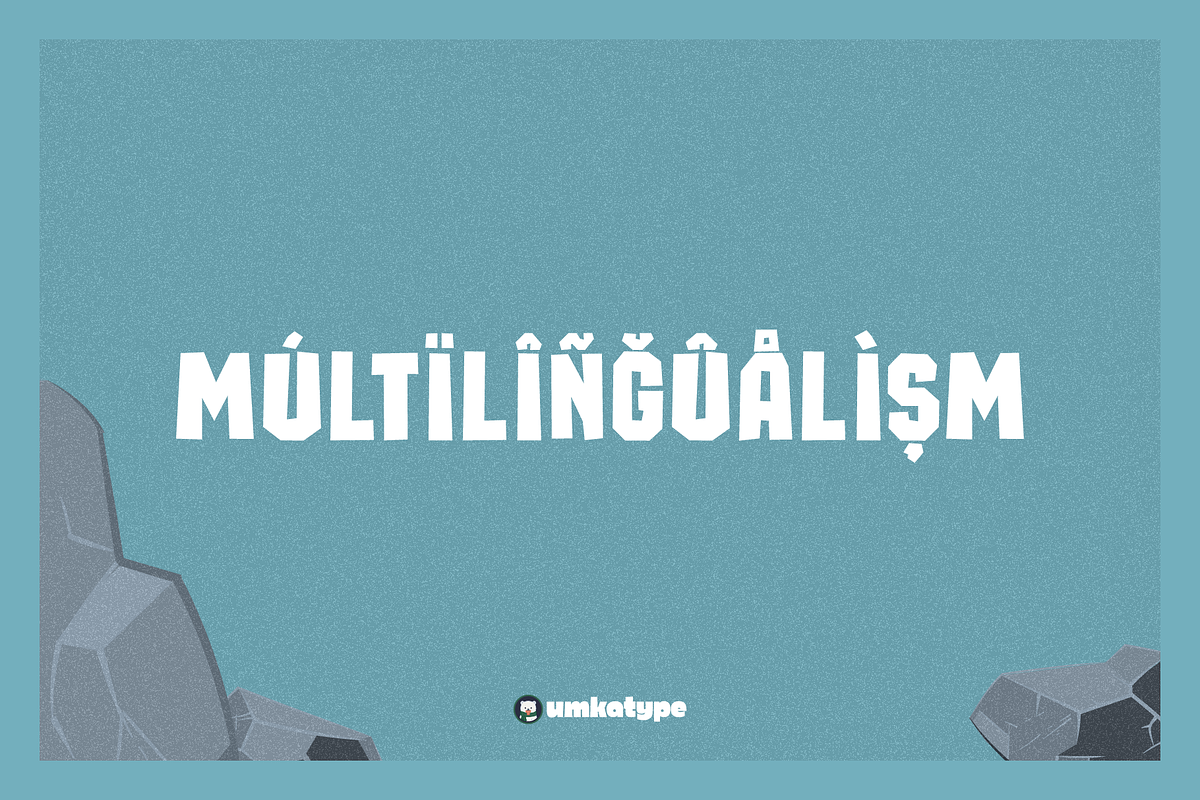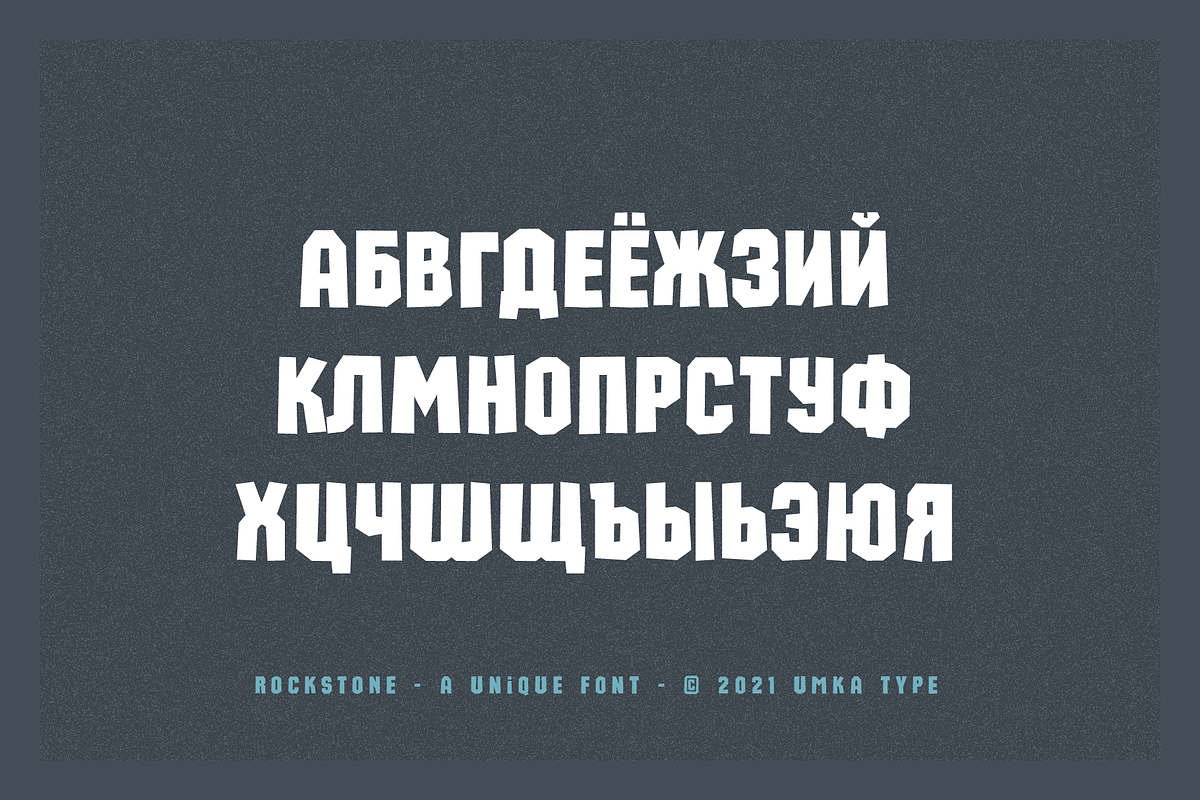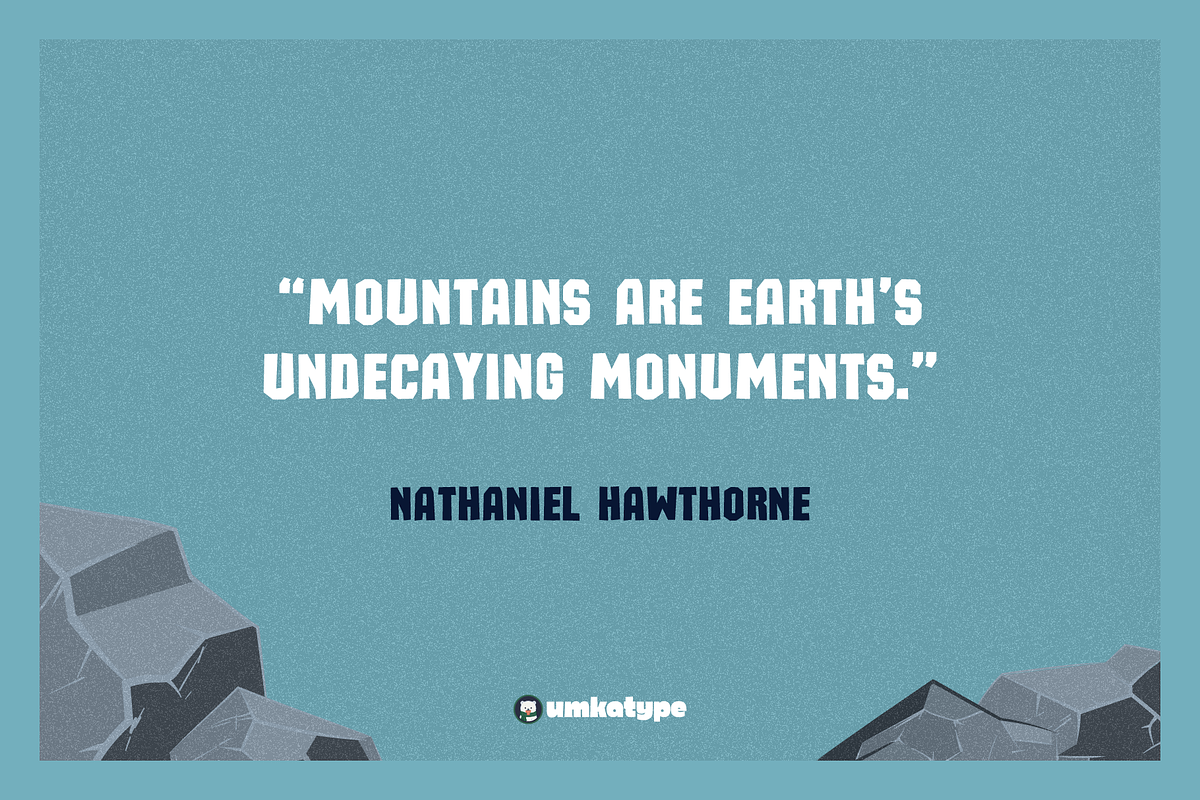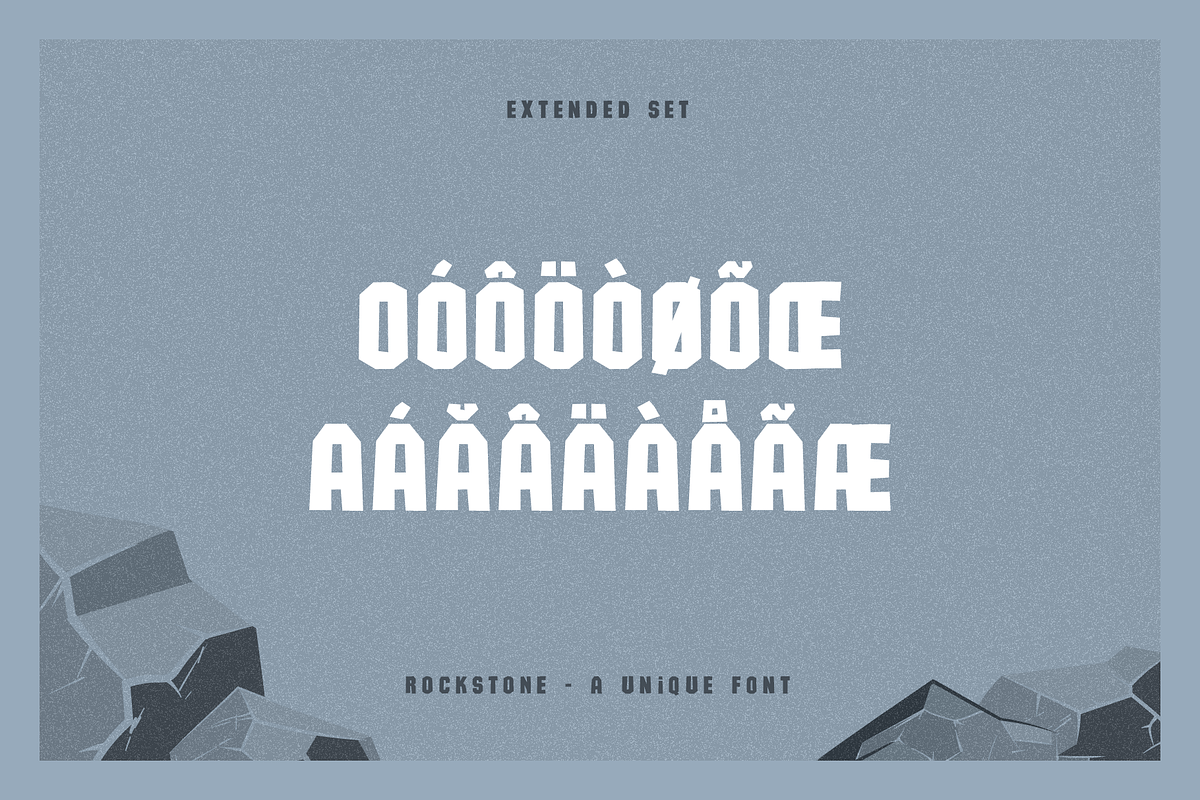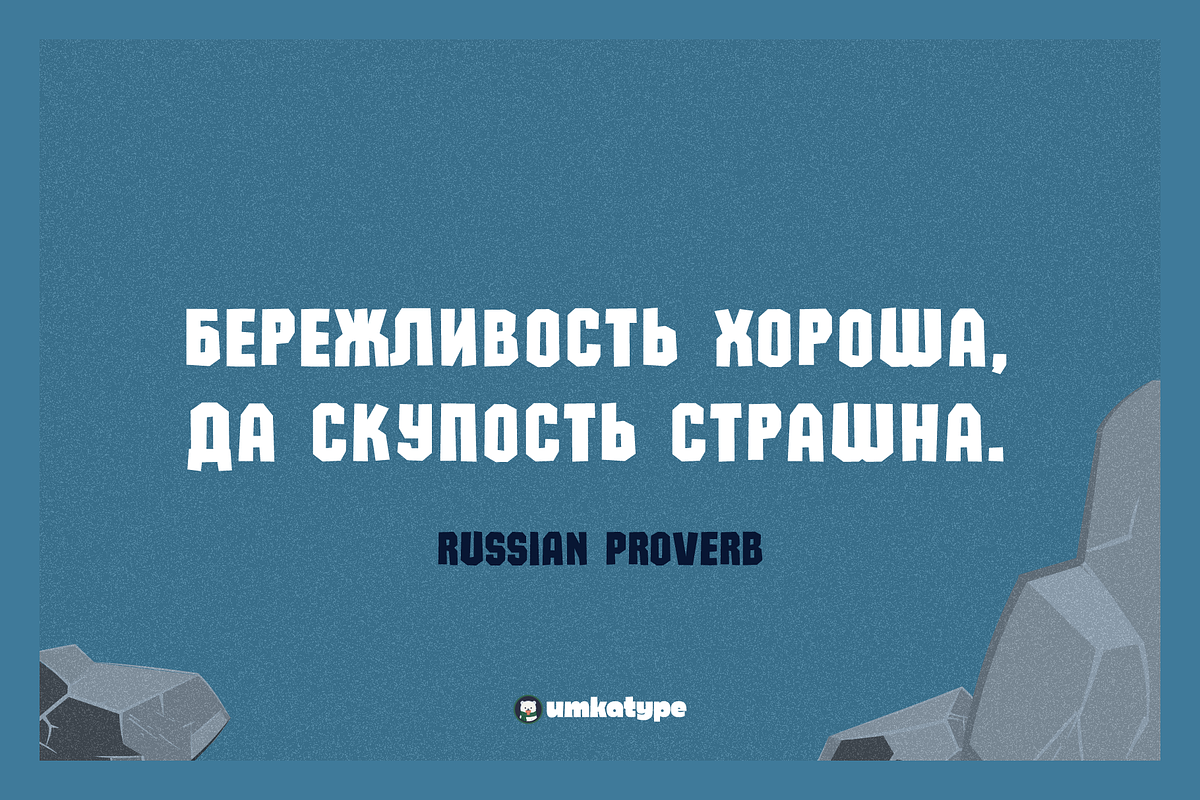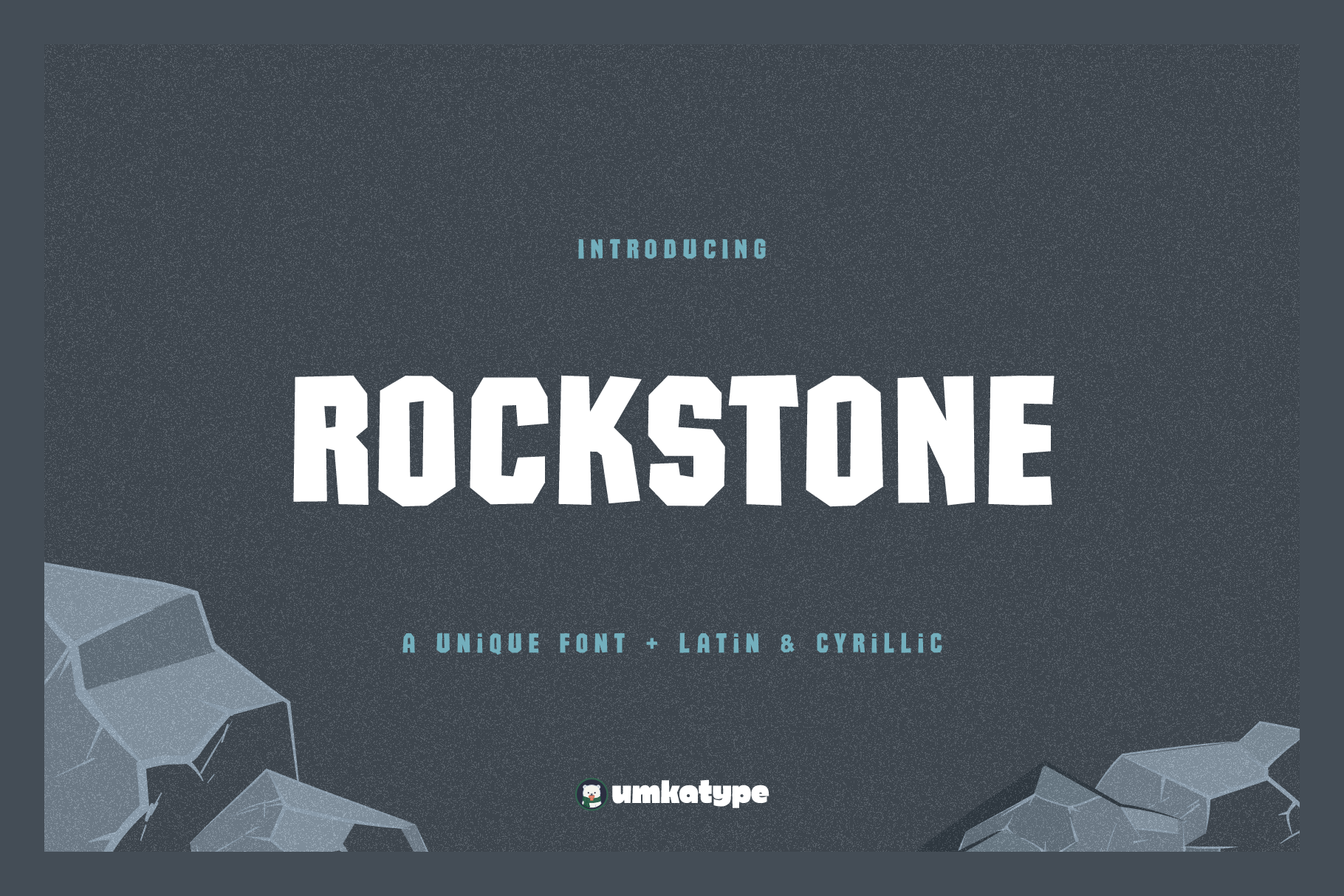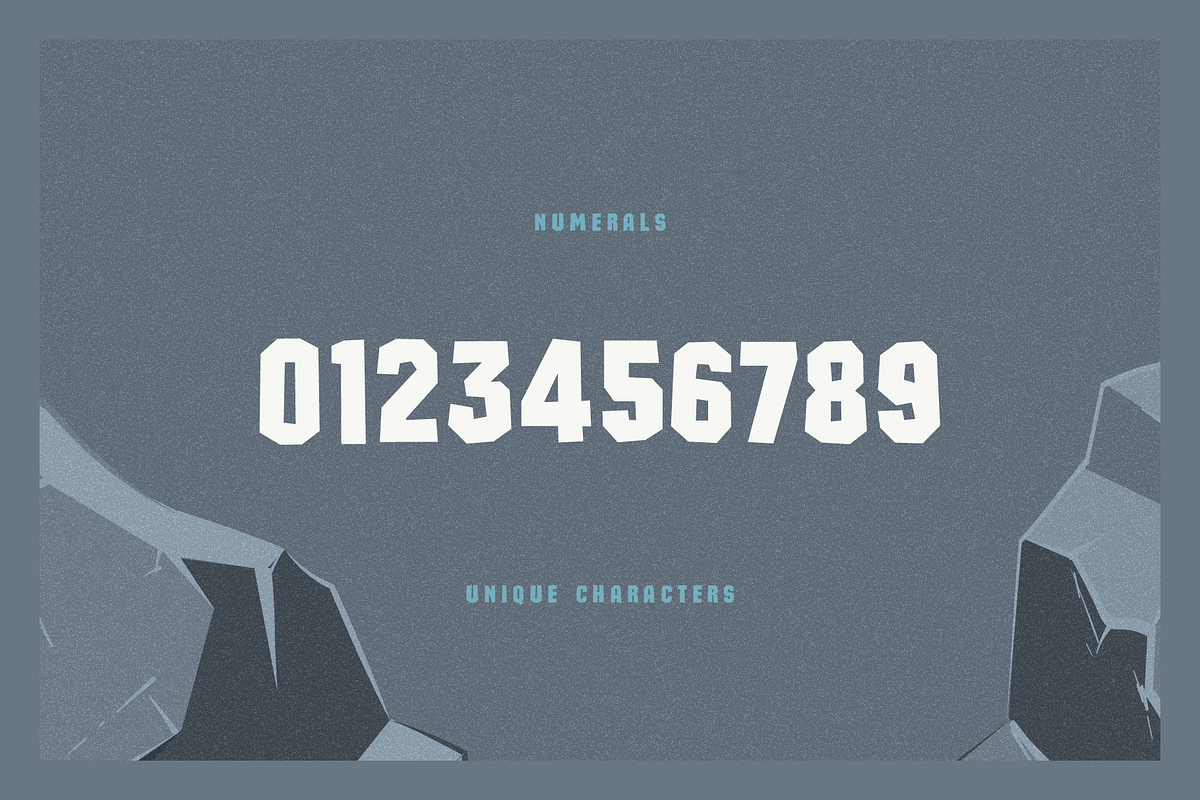
Rockstone Display Font
Rockstone - A Display Font
- Rockstone is a carefully crafted font.
- Multilingual: It has Extended Latin and Extended Cyrillic letters.
Rockstone created for games, web design, branding and social media works.